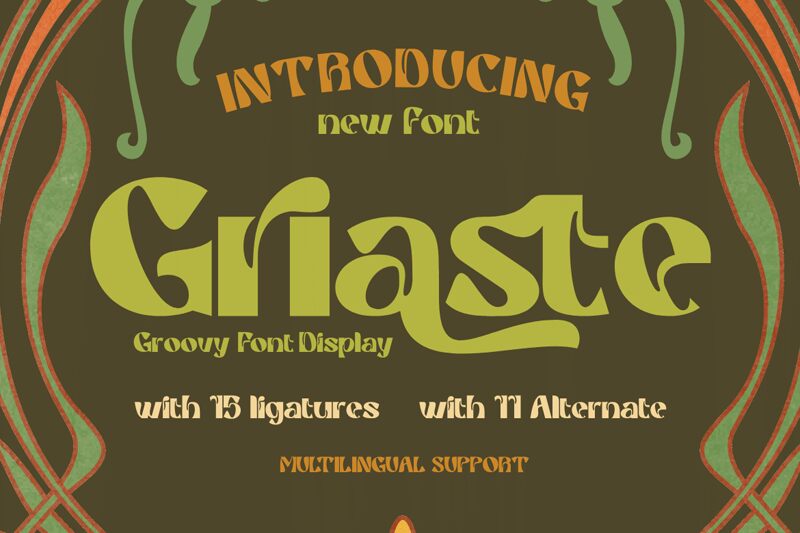
Griaste, a captivating display font crafted by Twinletter, exudes a groovy, bold aesthetic. Its dynamic letterforms and striking contrast create a visually compelling presence, evoking a sense of movement and energy. The font's bold weightiness and distinctive character shapes make it an impactful choice for headings, titles, and attention-grabbing applications.
Griaste's versatility extends beyond its eye-catching appeal, making it a suitable option for a wide range of design projects. Its bold, expressive nature lends itself well to branding, packaging, and editorial design, where it can command attention and leave a lasting impression. Additionally, the font's versatility allows it to be seamlessly integrated into modern web designs, adding a touch of retro-inspired flair to digital experiences.
Griaste